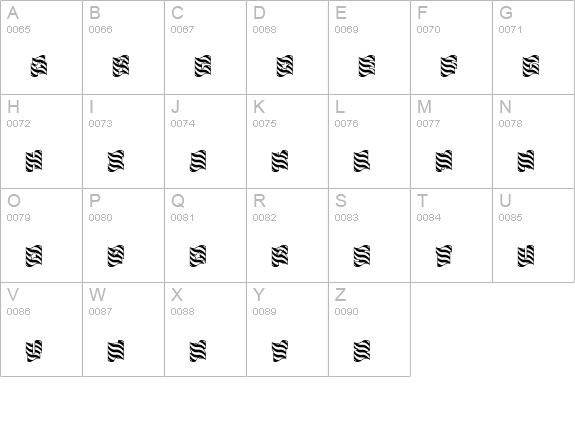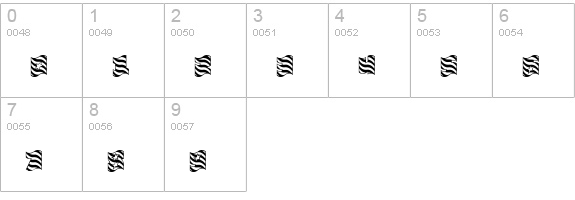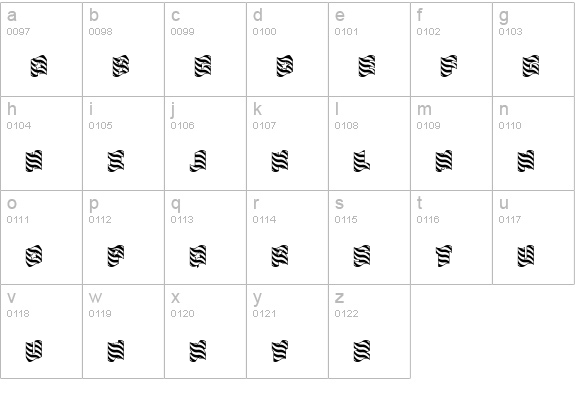
FlagDayTwo Font Details
FlagDayTwo font is a stunning typeface that exudes elegance and charm. With its intricate details and stylish design, this font is perfect for a wide range of projects, from branding to invitations to social media graphics. Its sleek lines and modern look make it a versatile choice for any design need. Best of all, FlagDayTwo font is available for free download at FontsMarket.com. This means you can easily access this beautiful font and use it in your projects without any cost. Don't miss out on the opportunity to add FlagDayTwo font to your collection and elevate your designs with its unique style and sophistication.